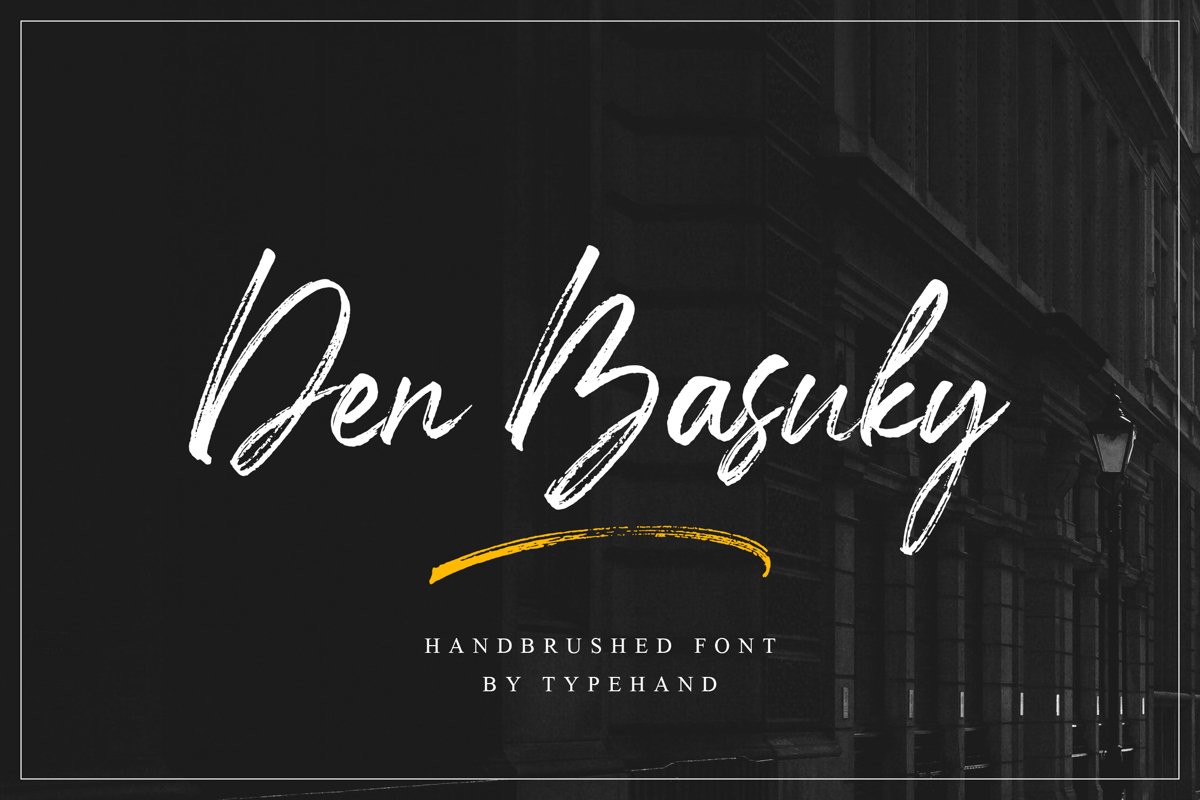
Den Basuky - Rustic Brush Font
Den Basuky Swashes
Den Basuky
Den Basuky is created from scratch brush, feel the rustic brush from this font. include swash in this font can simply to create more aesthetic.Den Basuky is perfect for branding project, homeware, product packaging, tees design or just simply as a stylish text overlay to any background image.Den Basuky have a set of 20 hand-drawn swash can compatible to our preview product, wedding invitation, qoute.